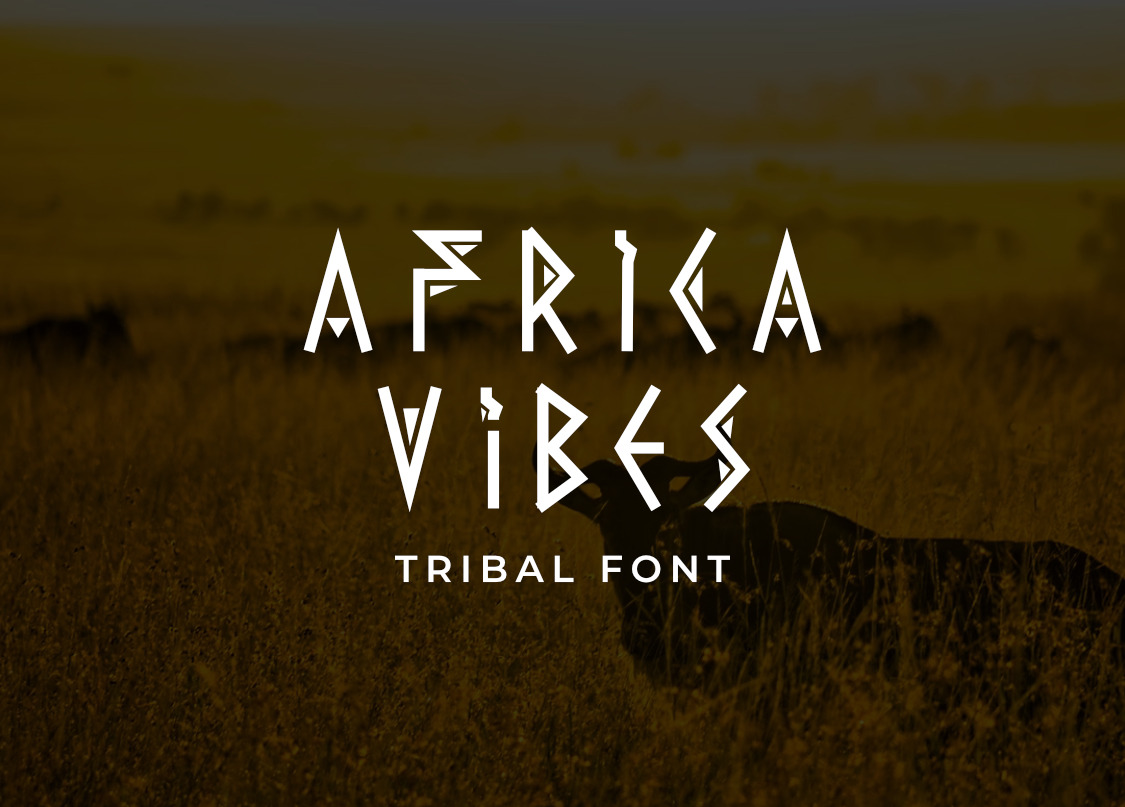
AFRICA VIBES FONT DISPLAY
AFRICA VIBES A very beautiful and interesting DISPLAY, and comes with a perfect line for use for various purposes. Like titles, signatures, logos, correspondence, wedding invitations, letterheads, nameplate, labels, bulletins, posters, badges, Branding, Greeting Cards, etc.